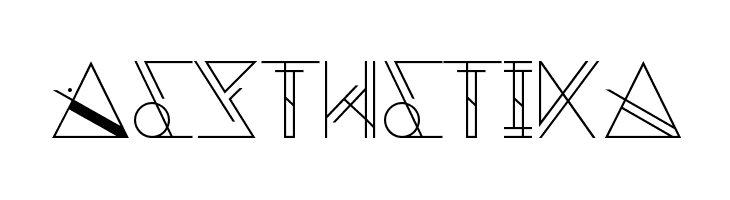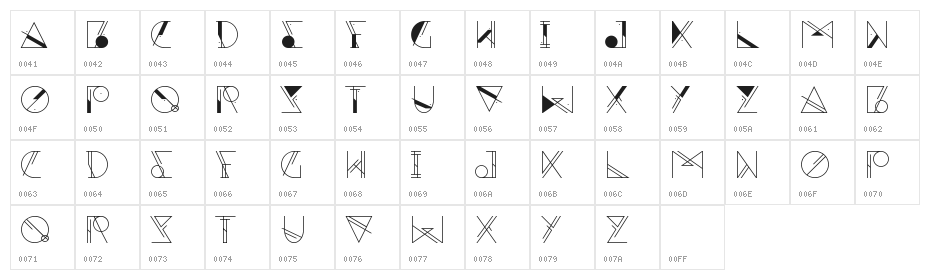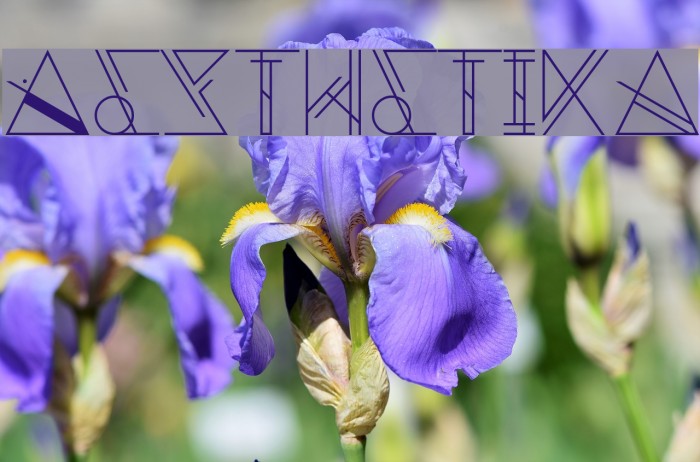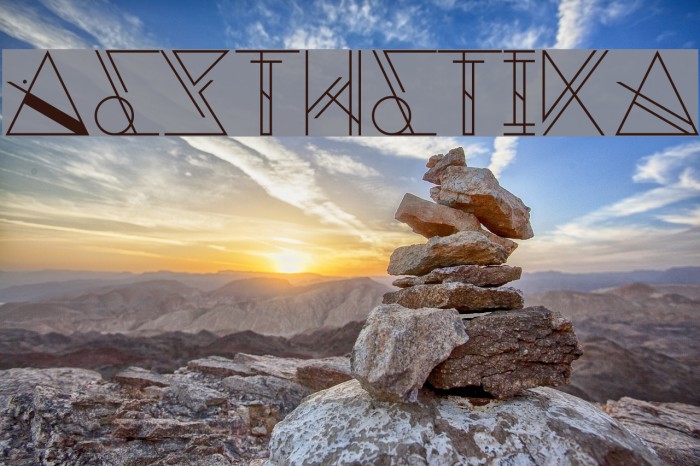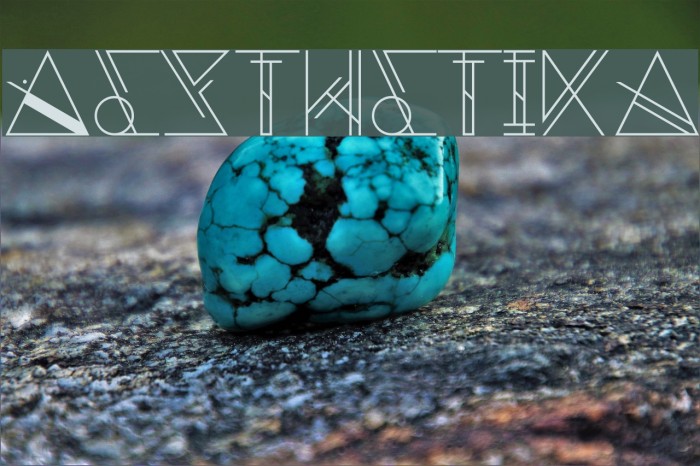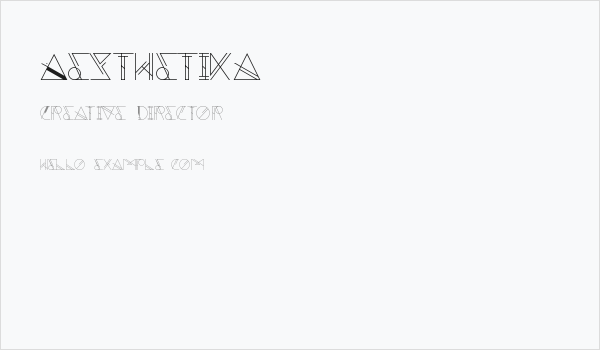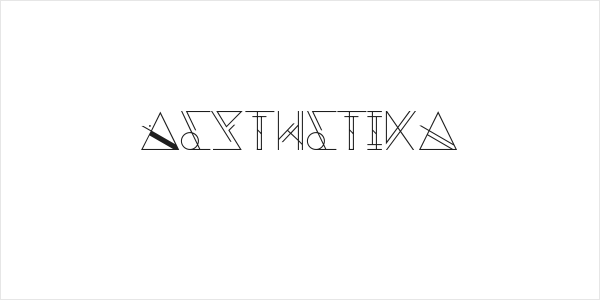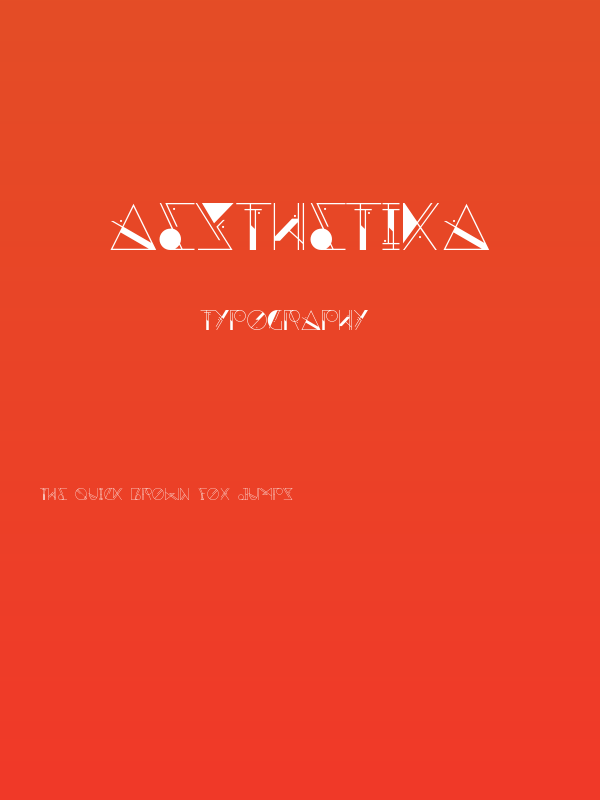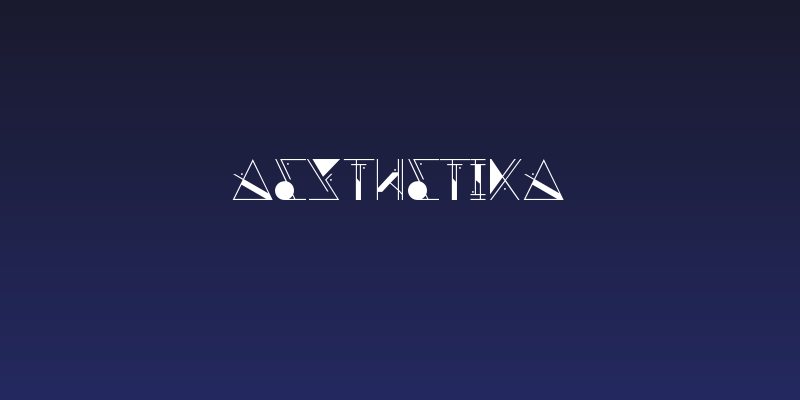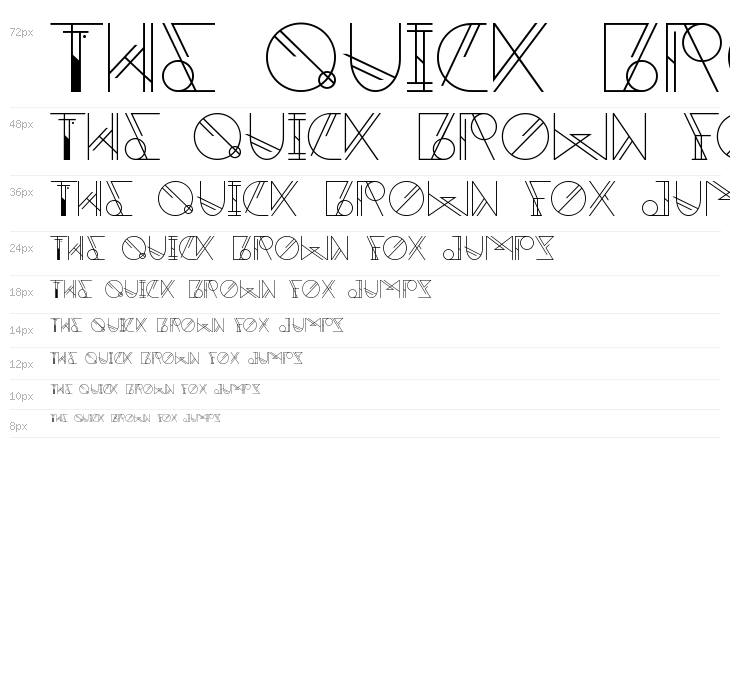
Aesthetika Font
Aesthetika Description
This font is a striking blend of geometric shapes and abstract forms, creating a unique and modern aesthetic. Each character is crafted with a combination of circles, triangles, and lines, resulting in a highly stylized and artistic appearance. The uppercase letters feature bold, angular designs, while the lowercase letters maintain a consistent geometric theme. The numbers and special characters are equally distinctive, incorporating similar design elements. This font stands out with its high contrast and decorative style, making it ideal for creative and artistic projects.
| Proposed Projects | Ideal for modern art projects, branding, posters, and creative digital media. |